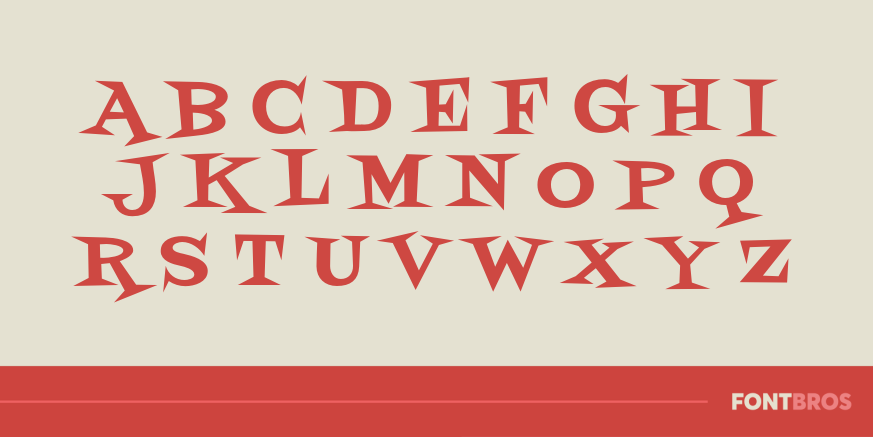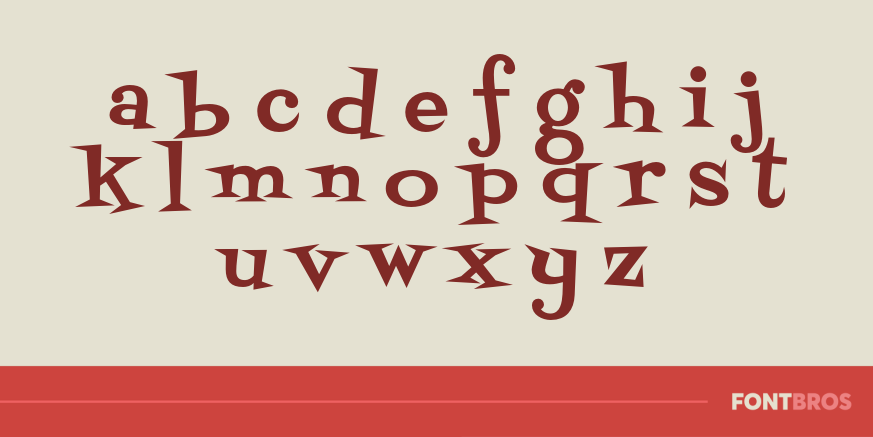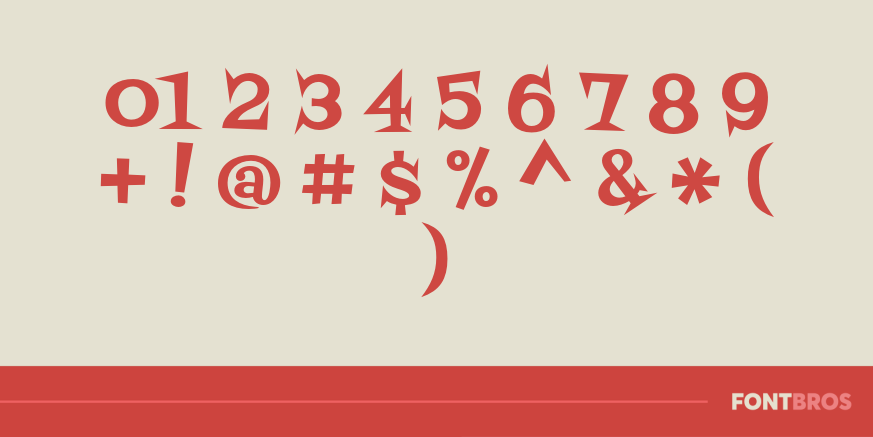
Fontdinerdotcom Swanky
Font Family by Font Diner
Atomic Age science meets ultra cool with this swingin' retro latin sharp serif font we call Fontdiner Swanky! Like the older much hipper brother of it's Loungy counterpart, Swanky brings his bolder style and charming good looks when it's time to really let the neighbors know you mean business!